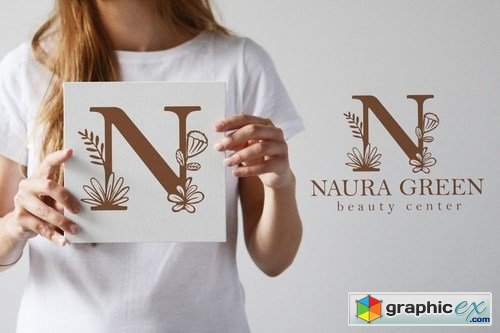
Manila Beauty
Manila Beauty is beautiful monogram font. Perfect for you that looking for instant design. Contains 2 style, regular (UPPERCASE) and split (lowercase)